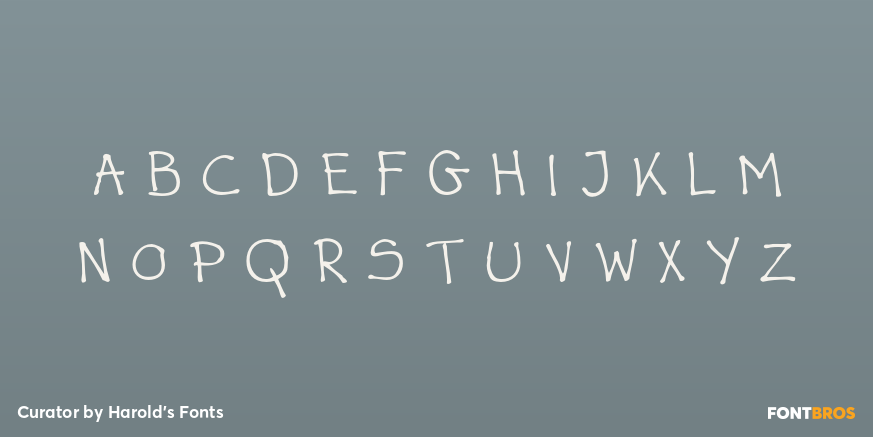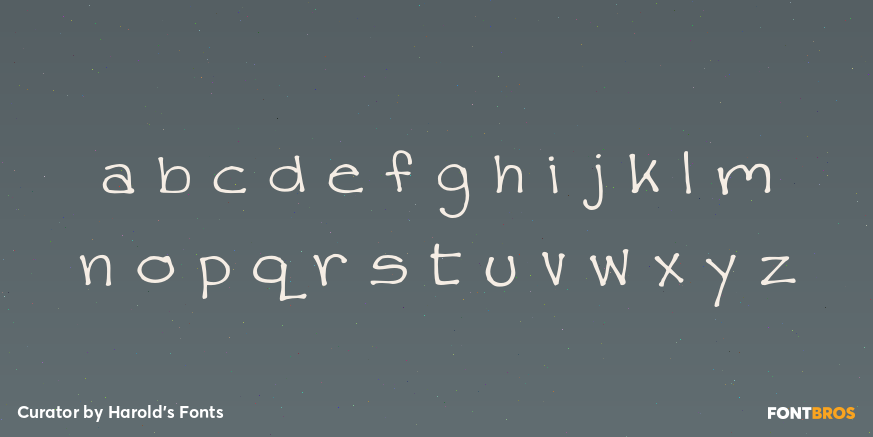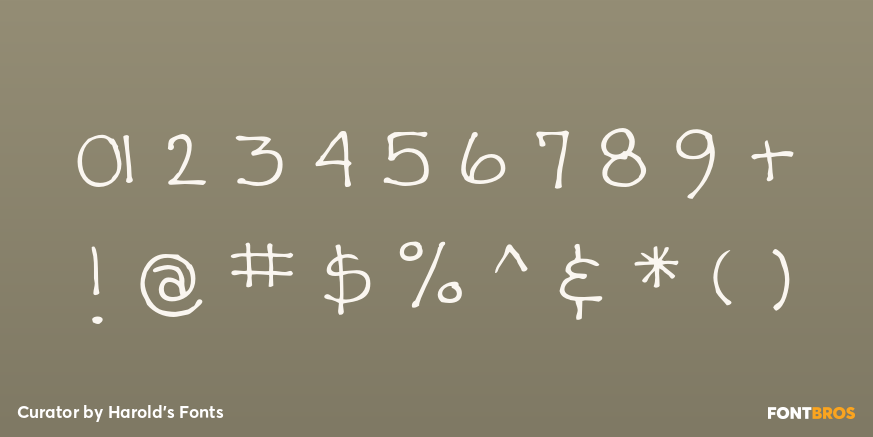
Curator
Font Family by Harold's Fonts
Curator is a handwriting font that's both precise and quirky, tightly spaced with a high x-height. It is a collaboration with my friend Corinna Ripps Schaming, a museum curator, who has maintained this immaculate hand since I met her in college. In three weights.